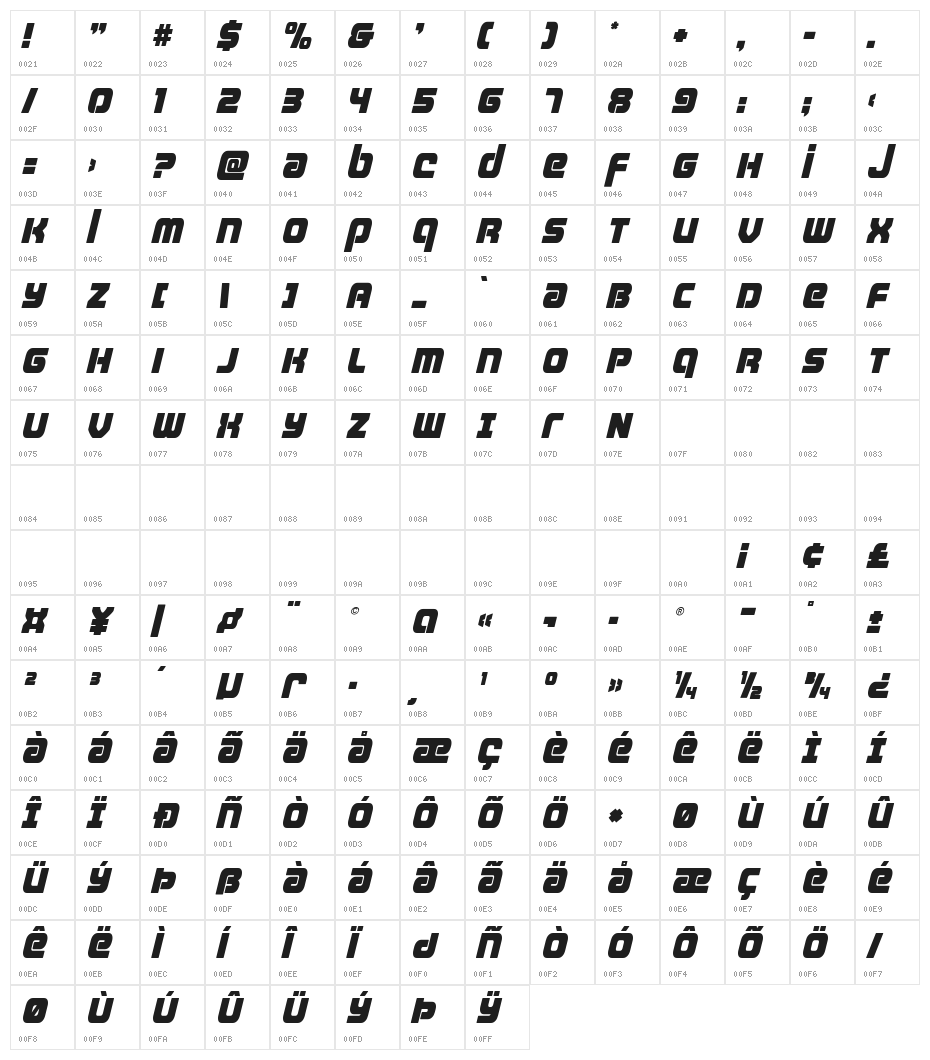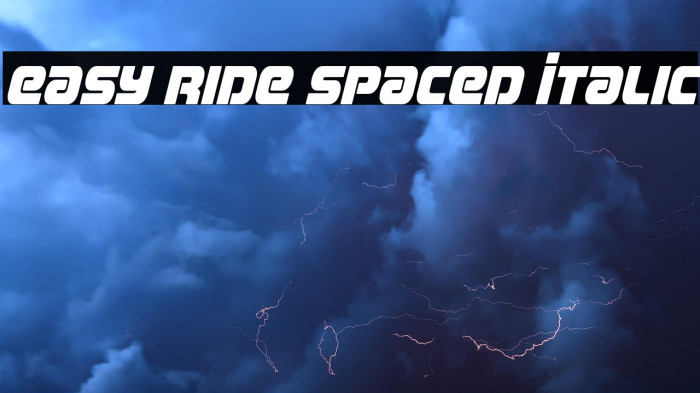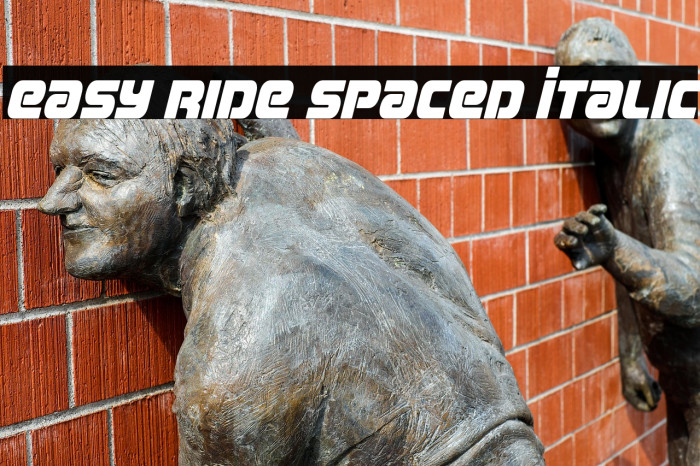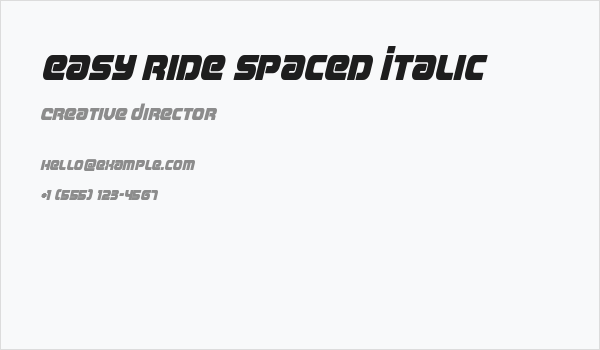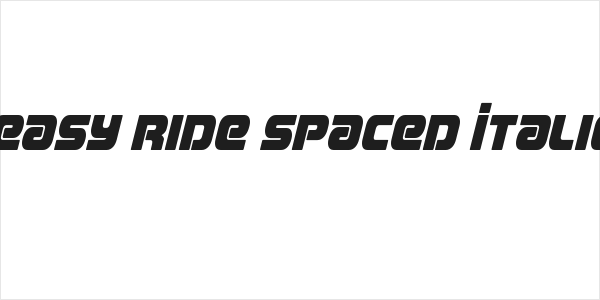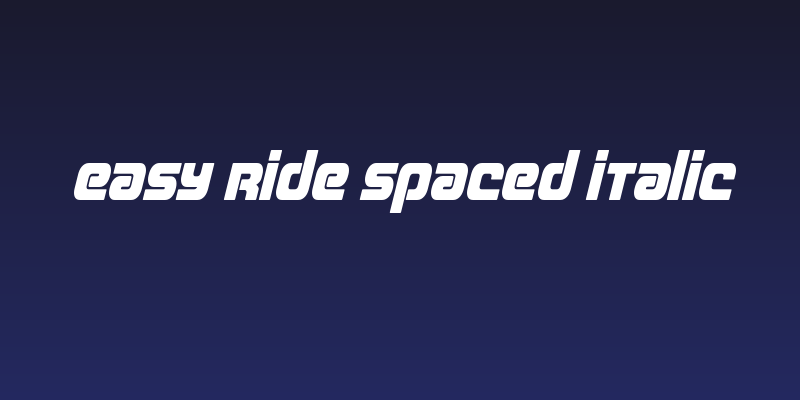
Easy Ride Spaced Italic Font
Easy Ride Spaced Italic Description
This font features a bold and dynamic style with a distinct italic slant, giving it a sense of movement and energy. The characters are designed with a modern, futuristic aesthetic, characterized by sharp angles and clean lines. The uppercase and lowercase letters maintain a consistent style, with the lowercase letters mirroring the uppercase in form and structure. The numerals are bold and easily readable, complementing the overall design. Special characters are included, maintaining the same bold and italicized style, ensuring versatility in usage. The font's design is suitable for projects that require a strong visual impact, such as branding, advertising, and digital media.
| Use Case | Headlines, Logos, Advertising |
| Proposed Projects | Ideal for branding, advertising, digital media, and any project requiring a strong visual impact. |